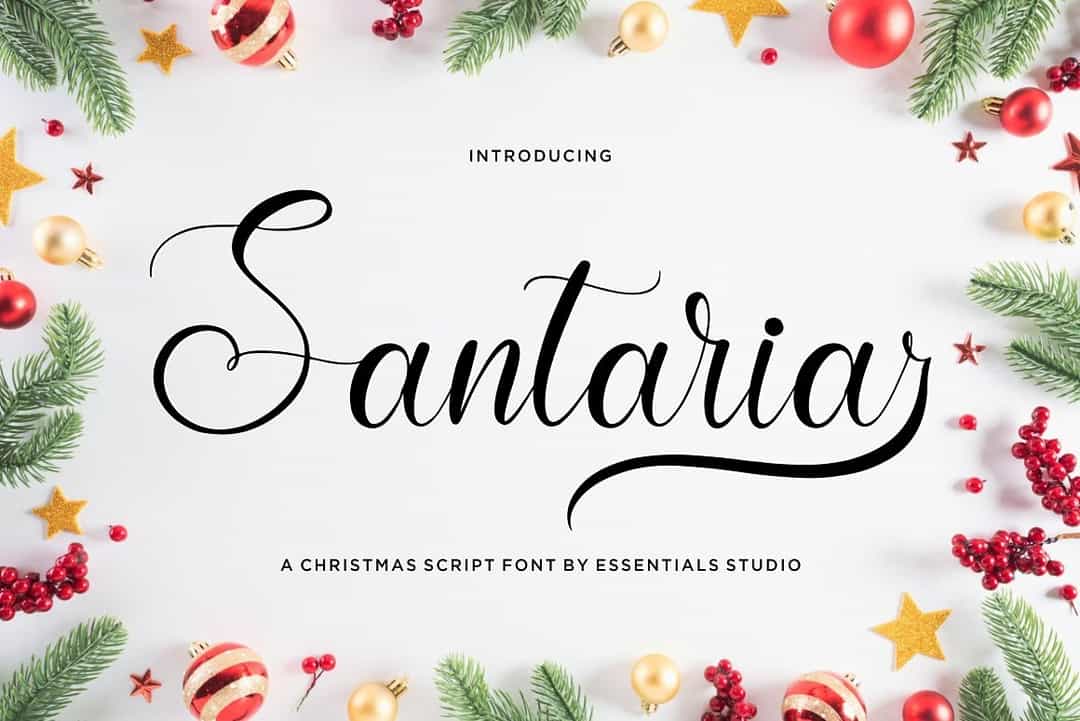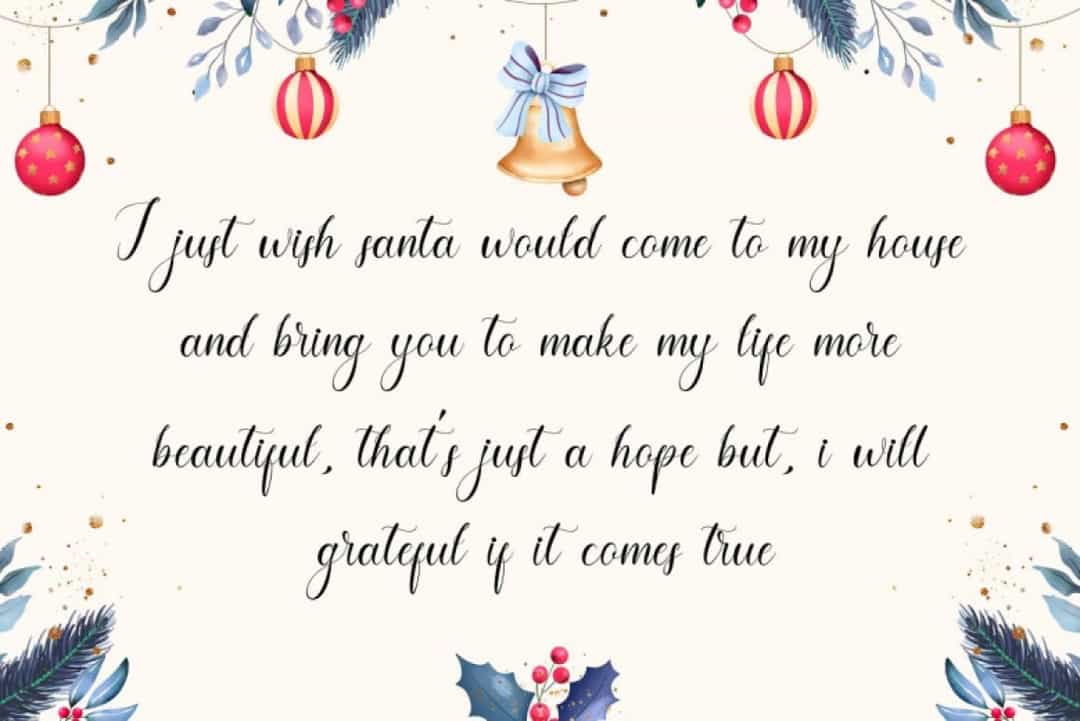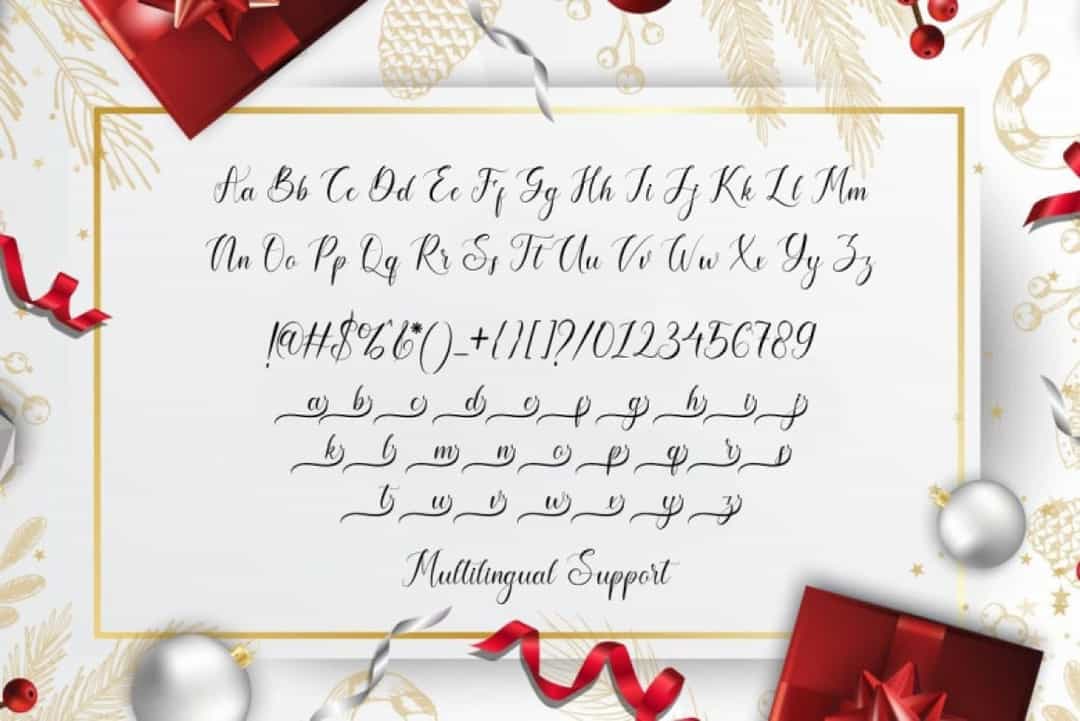
Santaria is an elegant Christmas Calligraphy font perfect for branding, packaging, projects, magazines weddings social media or writing words on the background.